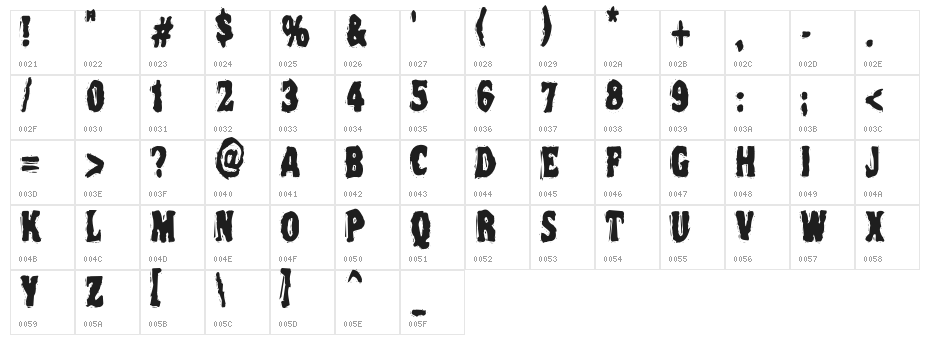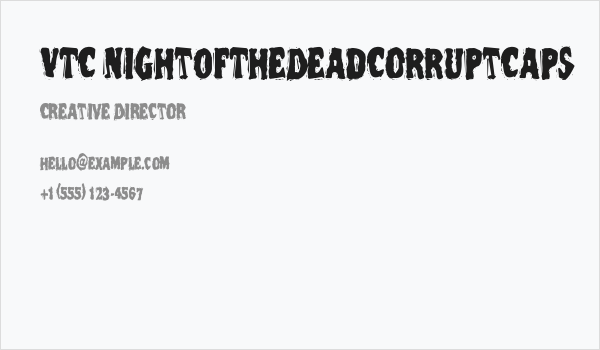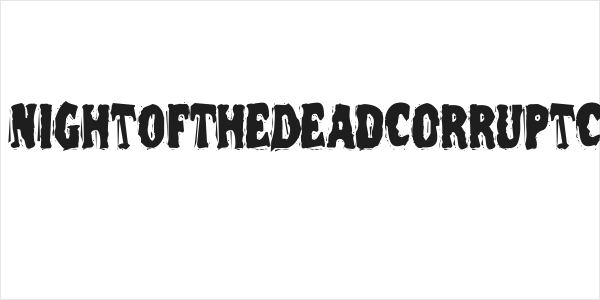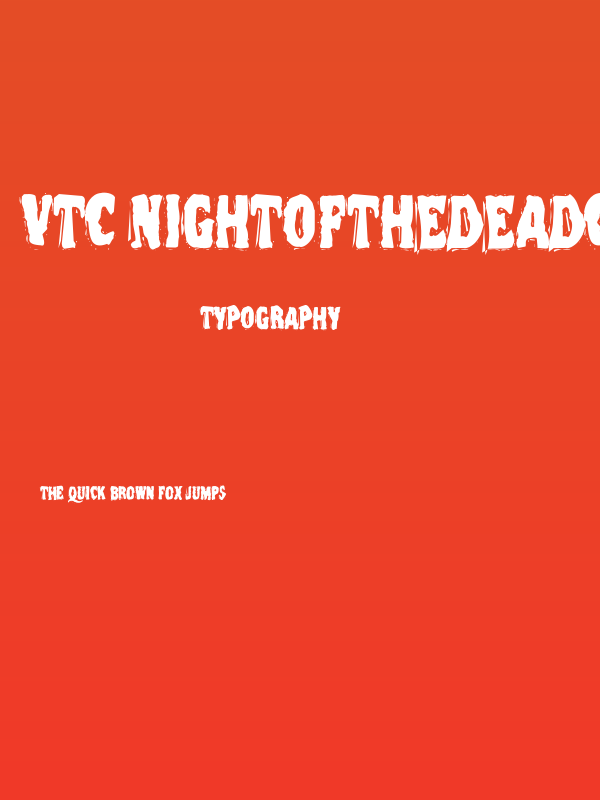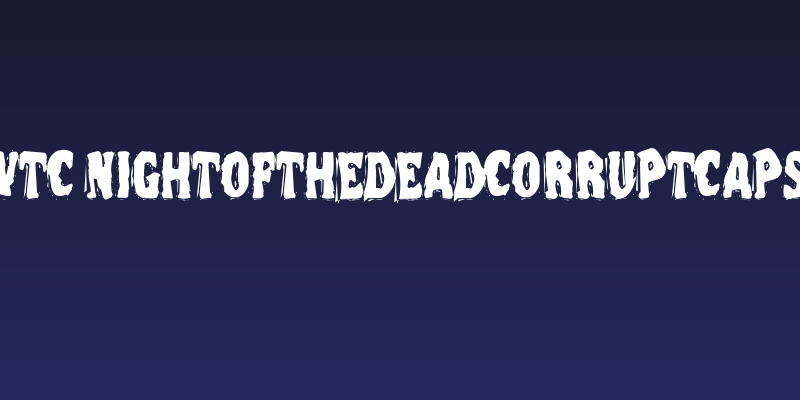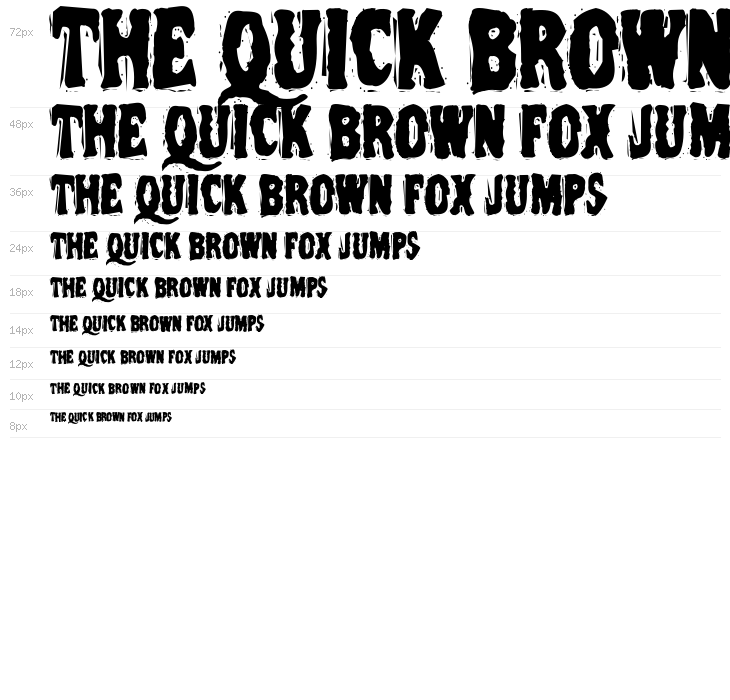
VTC NightOfTheDeadCorruptCaps Font
VTC NightOfTheDeadCorruptCaps Description
This font features a bold, distressed style with a grunge aesthetic, characterized by irregular edges and a textured appearance that mimics decay or erosion. The letters are thick and heavy, creating a strong visual impact. The uppercase and lowercase letters maintain a consistent style, with each character appearing as if it has been roughly carved or eroded. Numbers and special characters follow the same design, adding to the overall cohesive look. This font is ideal for projects that require a dramatic, edgy, or horror-themed look, making it perfect for Halloween events, horror movie posters, or themed merchandise.
| Proposed Projects | Ideal for horror-themed designs, Halloween events, movie posters, and edgy merchandise. |